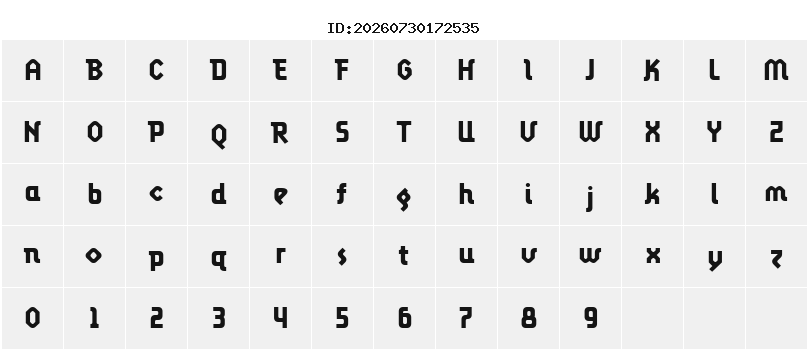
LunatixBold Preview
• Font Name: LunatixBold
• Font ID: Altsys Fontographer 3.5 LunatixBold Bold
• Full Font Name: LunatixBold Bold
• Version: Altsys Fontographer 3.5 2/1/93
• PostScript Name: LunatixBold
About LunatixBold.ttf
LunatixBold.ttf is a modern, elegant sans-serif font designed for ultimate readability and visual harmony. Perfect for branding, headlines, web design, and print materials.